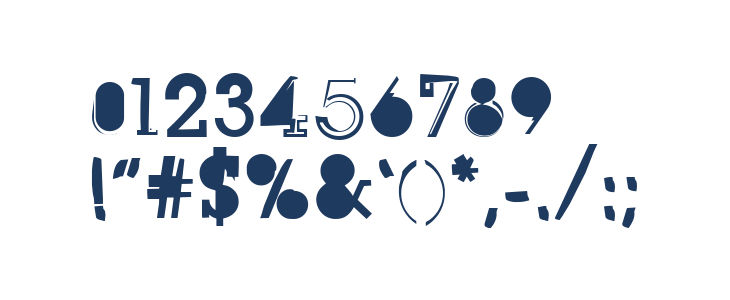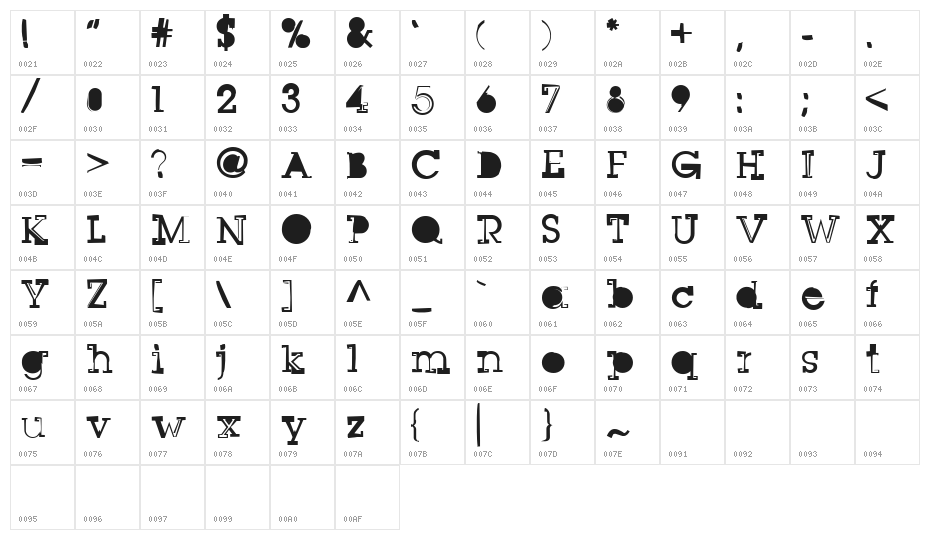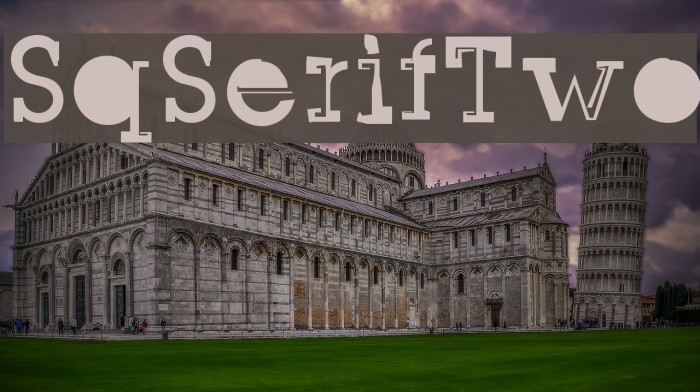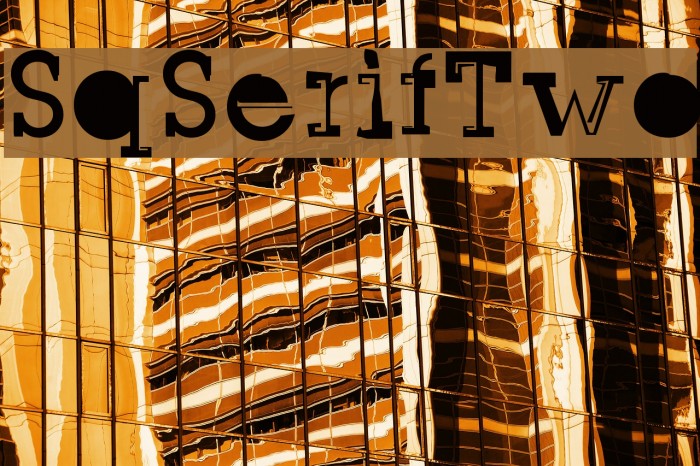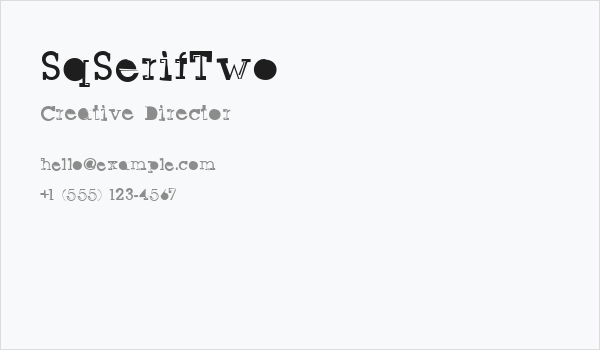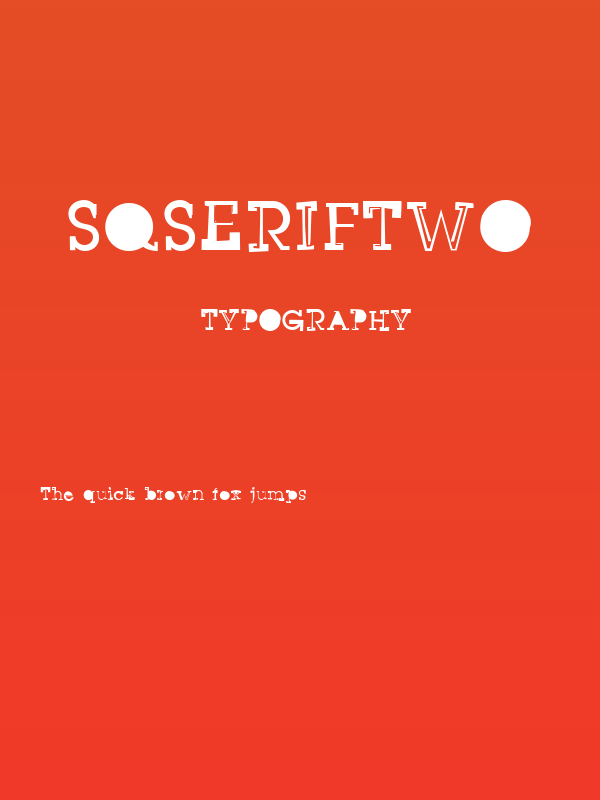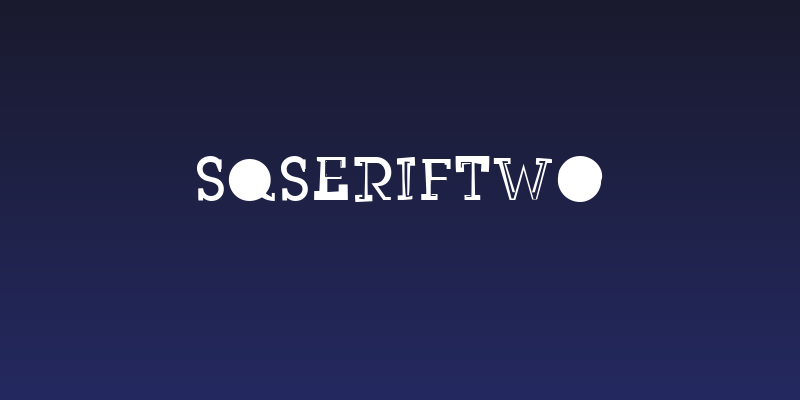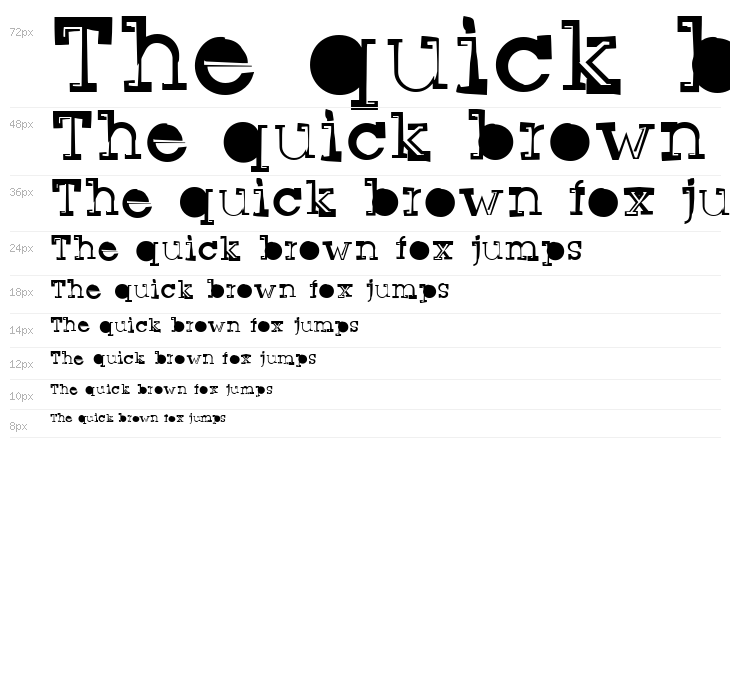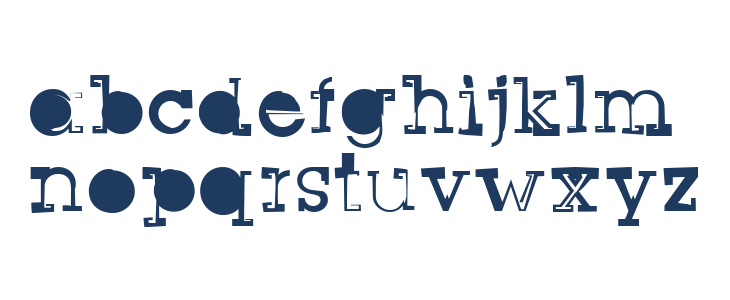
SqSerifTwo Font
SqSerifTwo Description
This font exhibits a bold and playful character with a distinctive slab serif style. Each letter is crafted with a combination of thick and thin strokes, creating a high contrast that draws attention. The uppercase letters are robust and commanding, while the lowercase letters maintain a quirky and approachable feel. The numbers are uniquely styled, with some featuring cut-out effects and others having a shadowed appearance, adding to the font's decorative nature. Special characters are equally bold, maintaining the overall aesthetic. This font is ideal for projects that require a strong visual impact and a touch of whimsy.
| Proposed Projects | Ideal for posters, branding, headlines, and any design needing a bold, eye-catching typeface. |